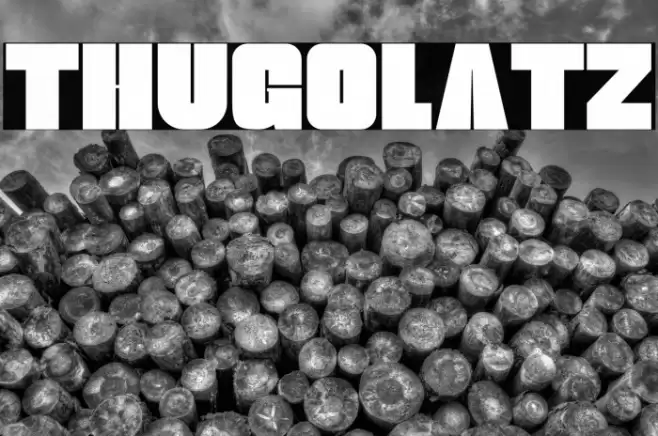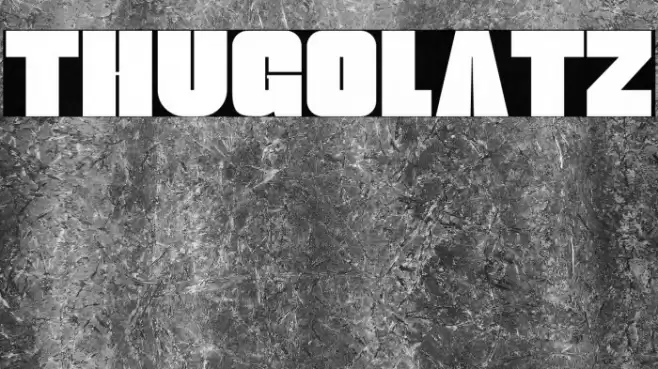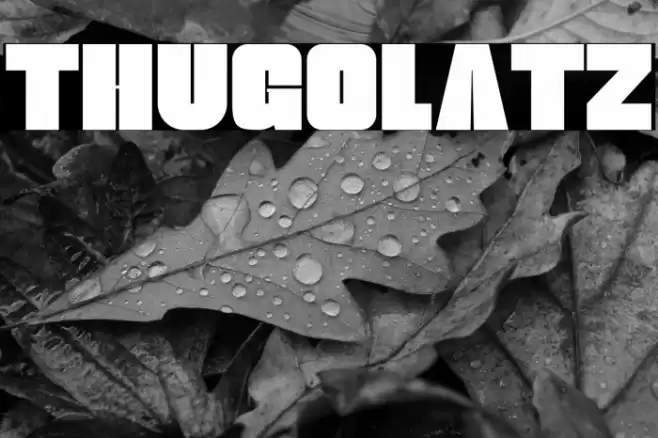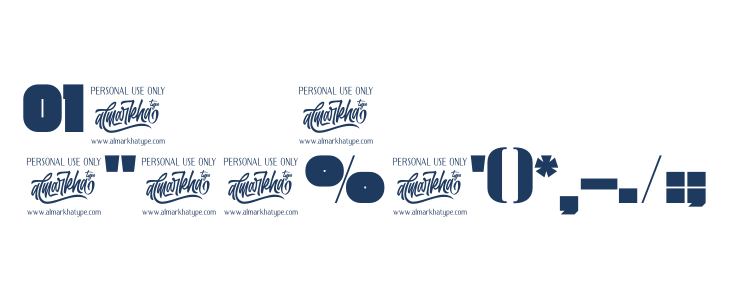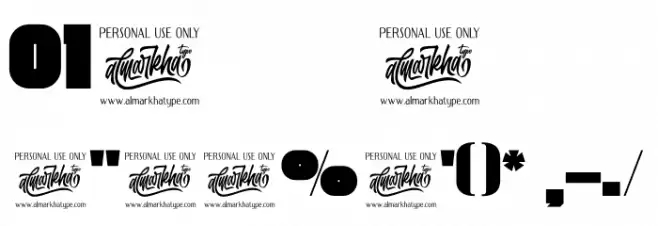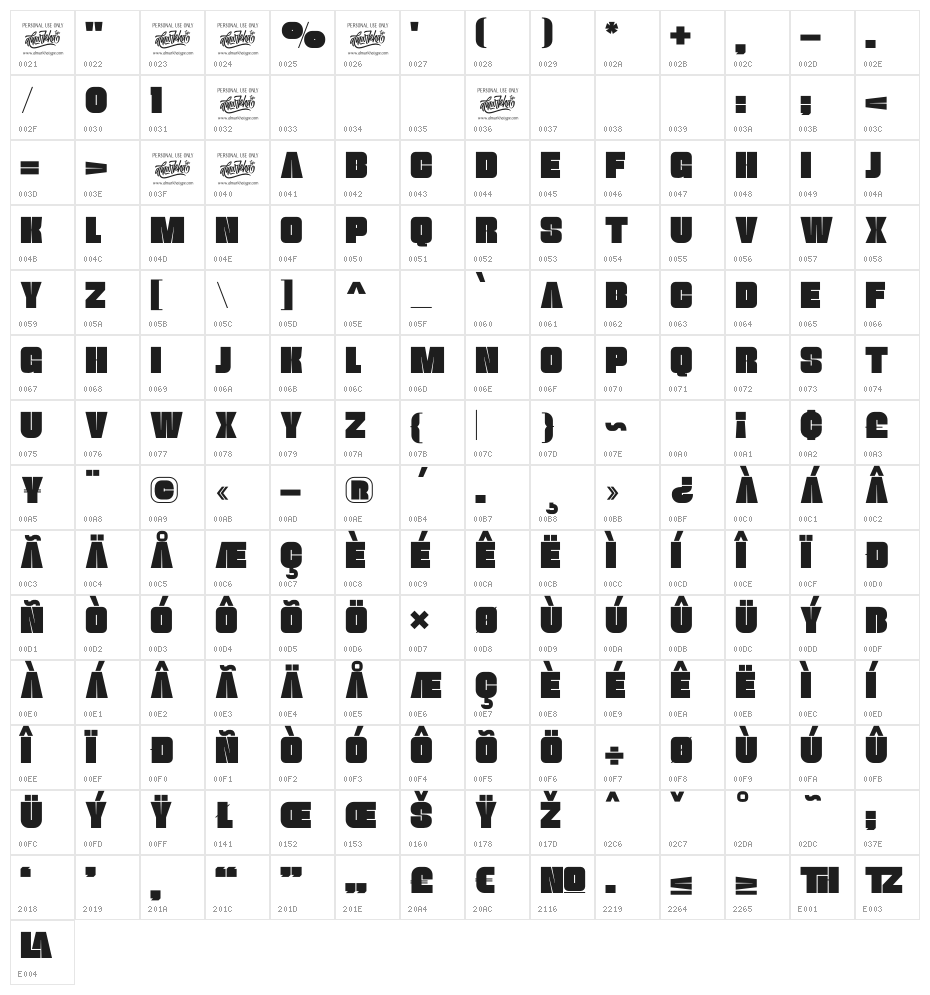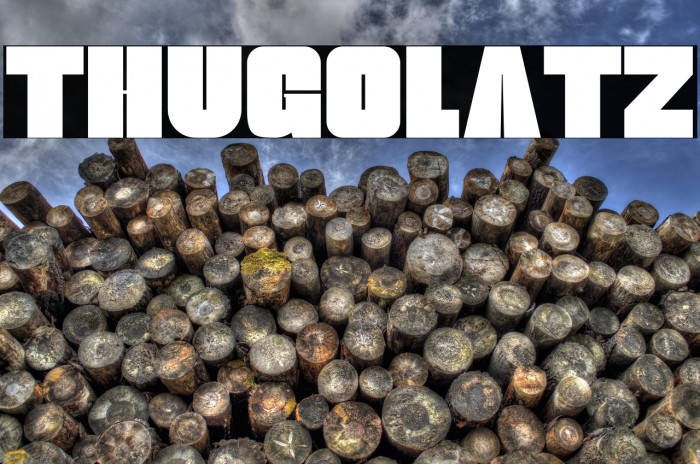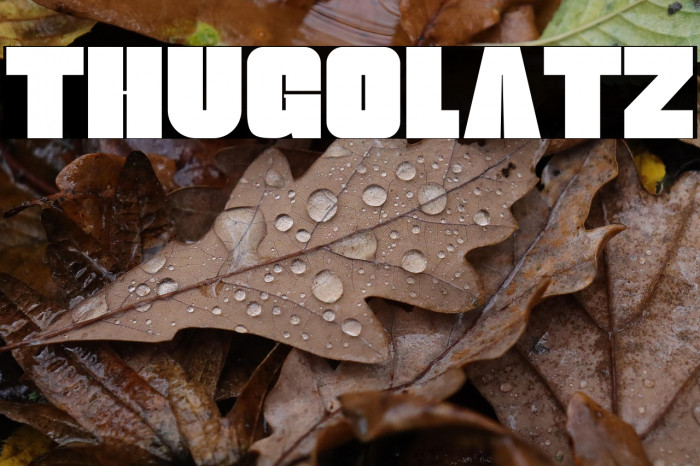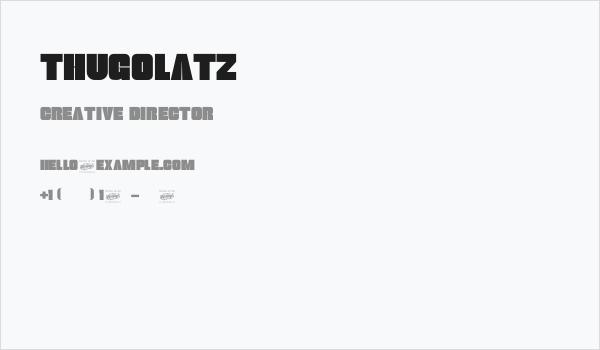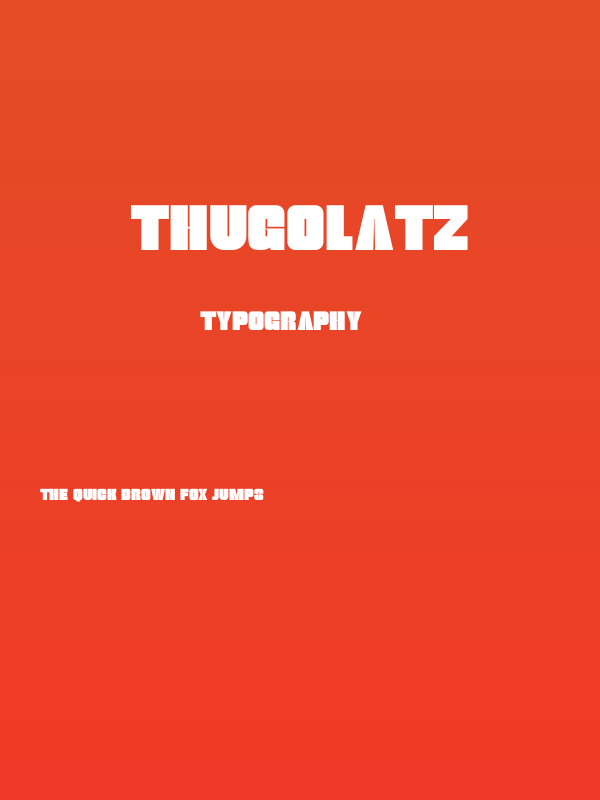
thugolatz Font
thugolatz Description
This font features a bold and impactful style with thick, blocky letterforms that convey strength and modernity. The uppercase letters are uniform in height, creating a cohesive and powerful visual presence. The design is characterized by its geometric shapes and sharp angles, giving it a futuristic and industrial feel. The numbers and special characters maintain the same boldness, ensuring consistency across all elements. This font is ideal for making a strong statement in any design project.
A bold, geometric font with a modern and industrial aesthetic from Uncategorized fonts.
- Proposed Projects: Ideal for branding, posters, headlines, and any project requiring a strong visual impact.
- Character Spacing: Tight